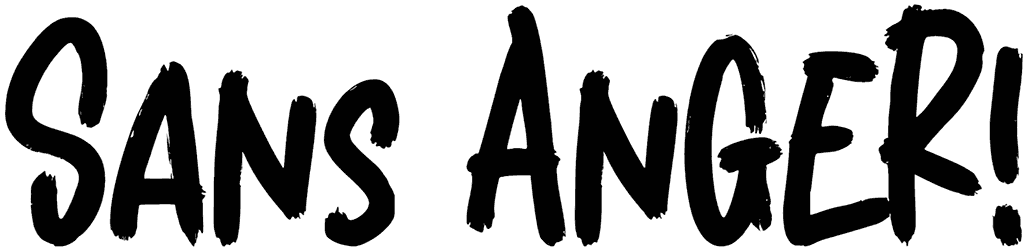
Sans Anger Font
Designed byOlivetype
Since overusing formal and repetitive fonts would be a real danger to the quality of your content, you should consider a magical brush font, the same as Sans Anger, as your plan B. Due to its crooked style, this all-caps script font can bring a feeling of disorder, grunge, smudginess, or dynamism to your work.